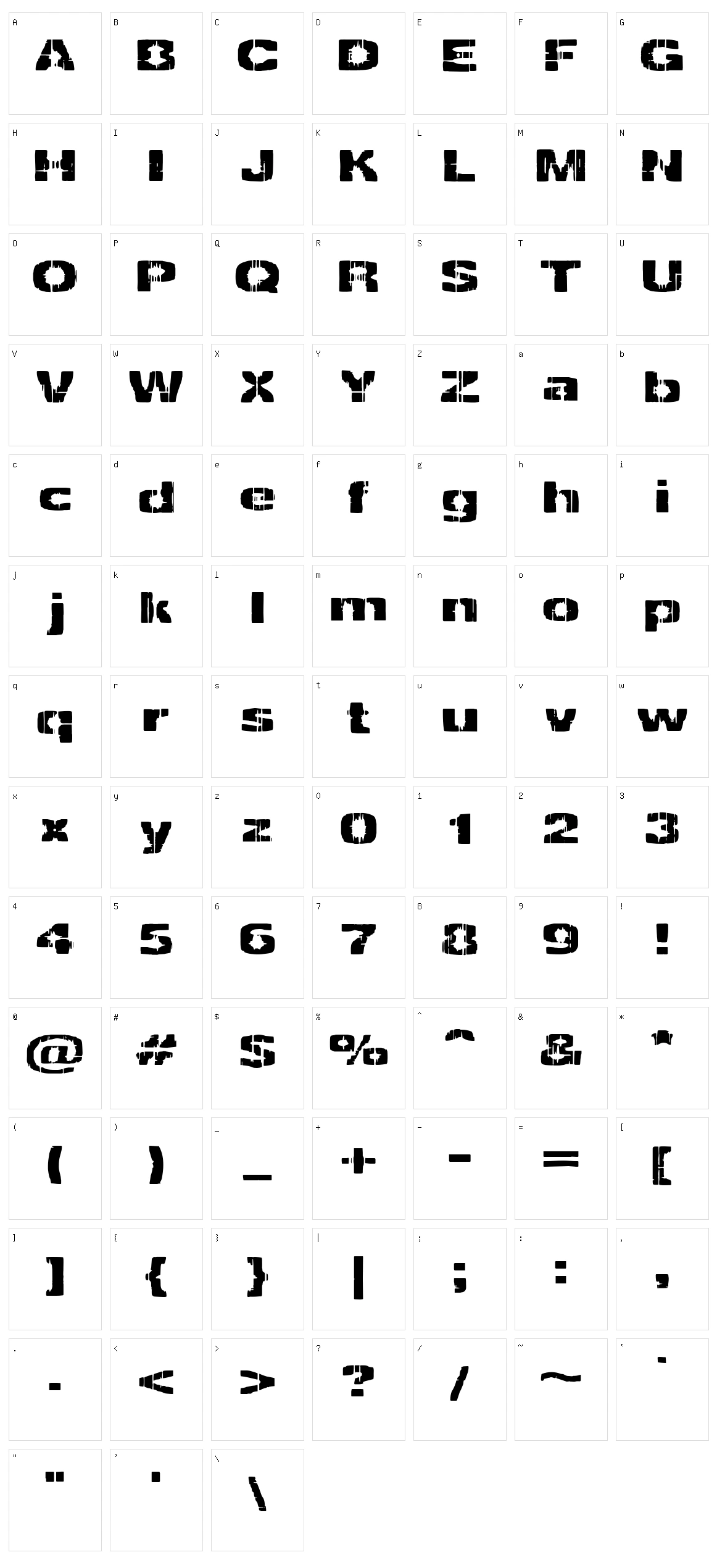
The free font Decrepit is carefully designed by Ænigma, showcasing a thoughtful balance of creativity and usability and falls under the Destroy font style. When you download the ZIP file, it contains only 48.02 KB of font files, making it lightweight and quick to download. Please review the license details below to understand permitted usage and distribution rights. If license information is not available, we recommend using this font for personal projects only or contacting the author directly for commercial usage permissions.
Decrepit Created by Brian Kent